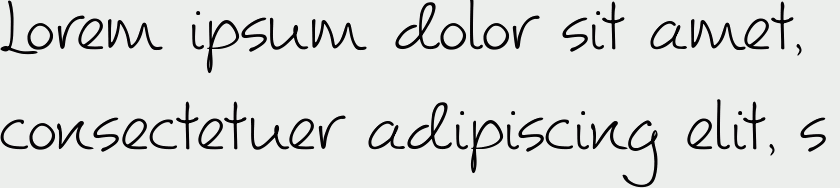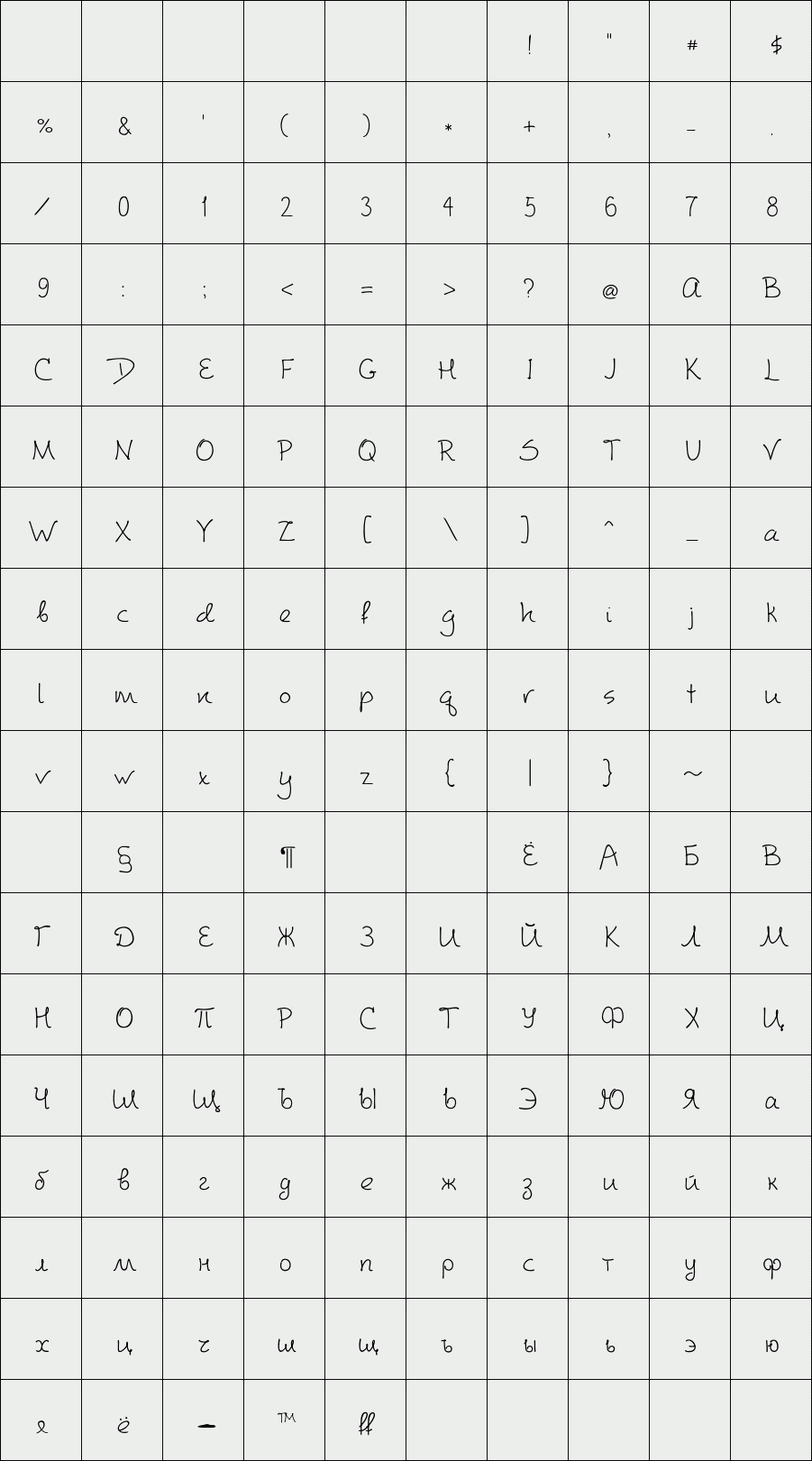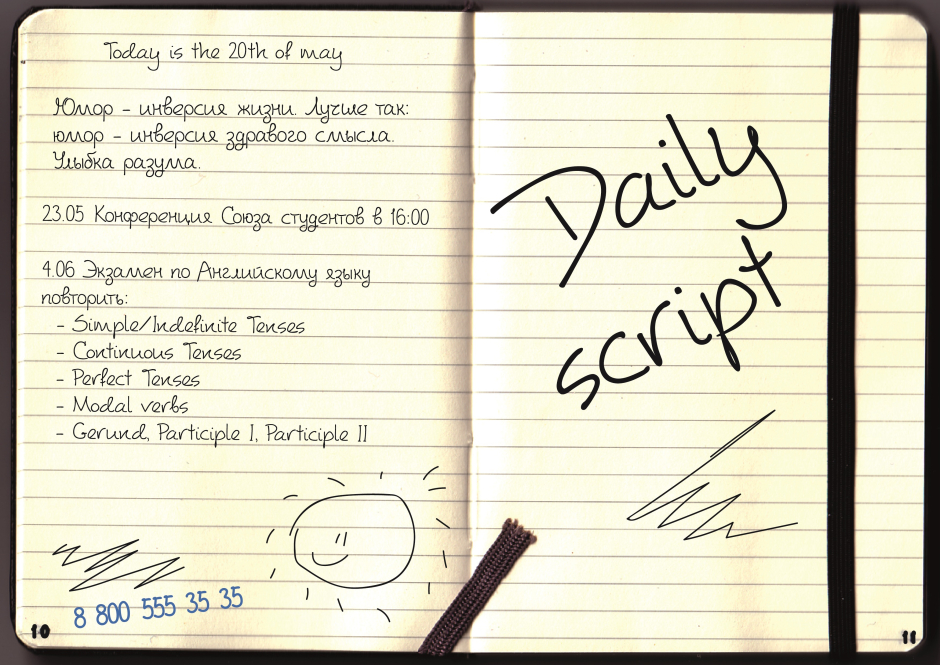
DailyScript regular
DailyScript is a handwriting font, designed for frequent use . DailyScript is in OpenType format. All weights contains an extended set of ligatures, swashes en alternatives.
Designer: Dmitry Pavlichenko